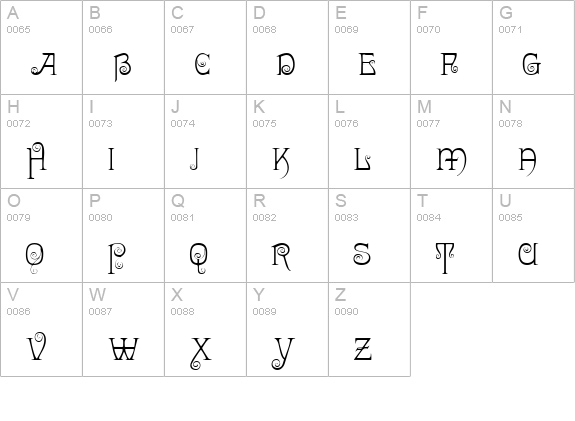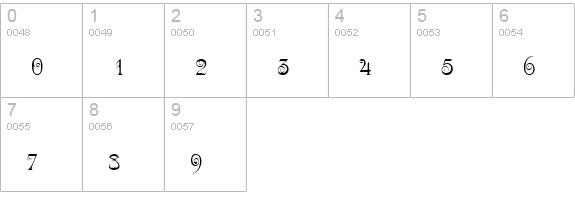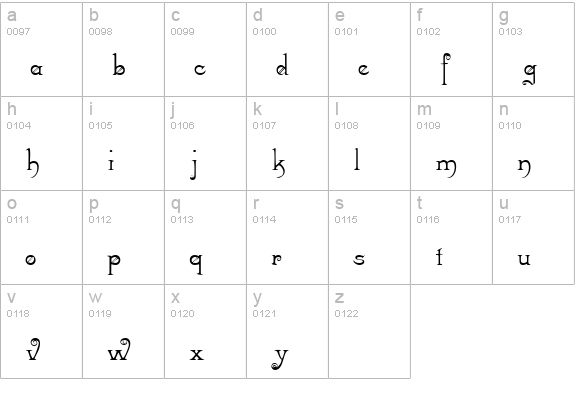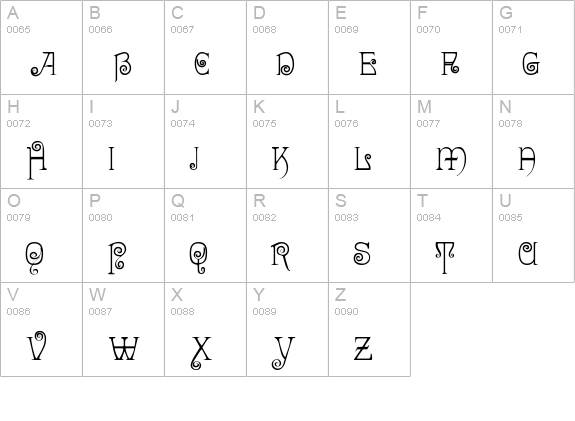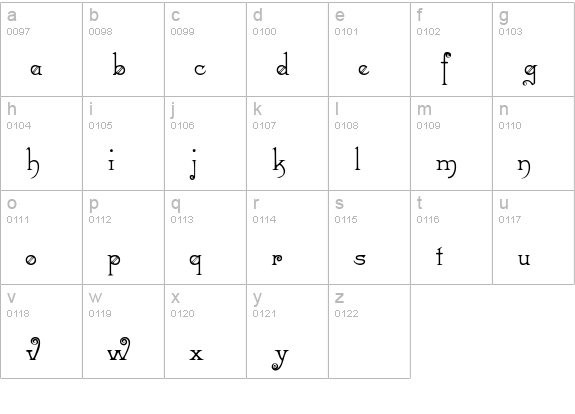
RiccioDisplayScriptSSK Font Details
RiccioDisplayScriptSSK is a stunning font that effortlessly combines elegance and playfulness. With its intricate script style, this font is perfect for adding a touch of sophistication to any project. This font features beautifully flowing letterforms with delicate curves and swashes, giving it a unique and eye-catching look. Whether you're designing a logo, creating invitations, or working on a branding project, RiccioDisplayScriptSSK will surely make your design stand out. One of the best things about RiccioDisplayScriptSSK is that it is free! That's right, this font is freely available to download at FontsMarket.com. This means that you can use it for personal or commercial projects without any restrictions. Not only is RiccioDisplayScriptSSK visually appealing, but it is also highly versatile. It works well in both small and large sizes, making it suitable for various applications. From headlines and titles to body text and captions, this font can handle it all. The attention to detail in RiccioDisplayScriptSSK is truly remarkable. Each letter is carefully crafted to ensure optimal legibility and readability. The characters seamlessly flow into one another, creating a smooth and harmonious rhythm. Whether you're a professional designer or someone who simply enjoys experimenting with fonts, RiccioDisplayScriptSSK is a must-have in your collection. Its timeless beauty and effortless charm will elevate your designs and leave a lasting impression on your audience. So why wait? Head over to FontsMarket.com and download RiccioDisplayScriptSSK for free today. Unleash your creativity and bring your designs to life with this remarkable font.